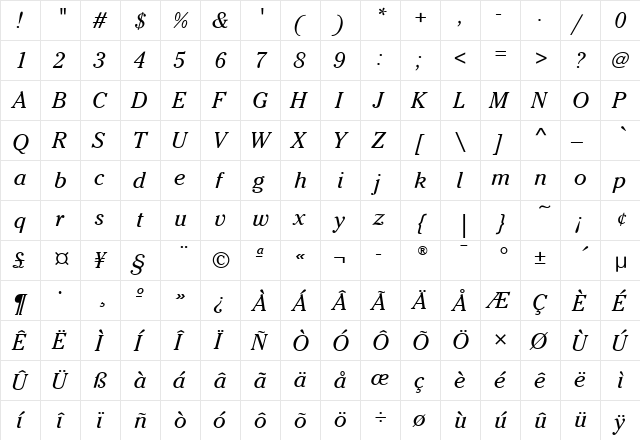
CheltenhamBookITC Italic
Design Context for CheltenhamBookITC Typeface
CheltenhamBookITC is a composed and adaptable typeface that performs quietly and consistently across a wide range of design contexts. Its italic angle brings a sense of urgency and motion to the letterforms.
Pro Tip: Use CheltenhamBookITC for emphasis, pull quotes, and subheadings where its slanted energy can add rhythm to the layout.